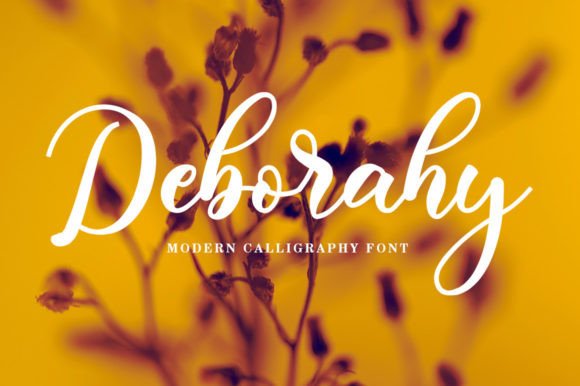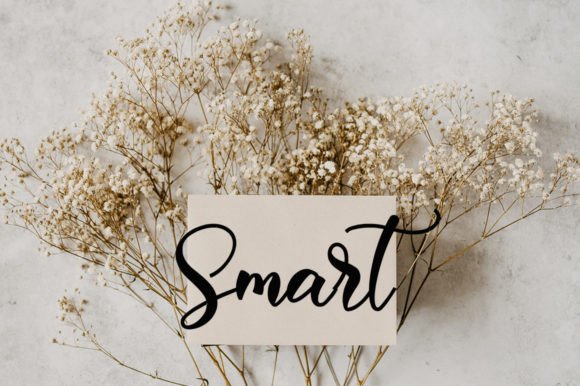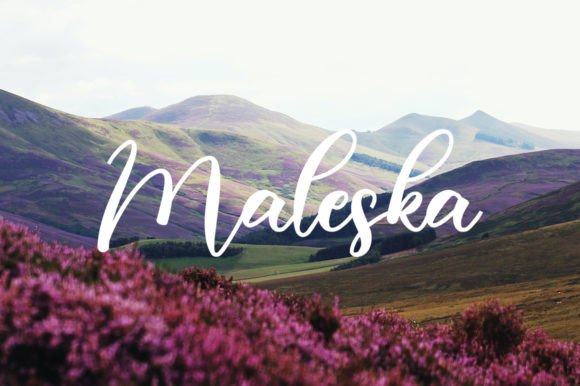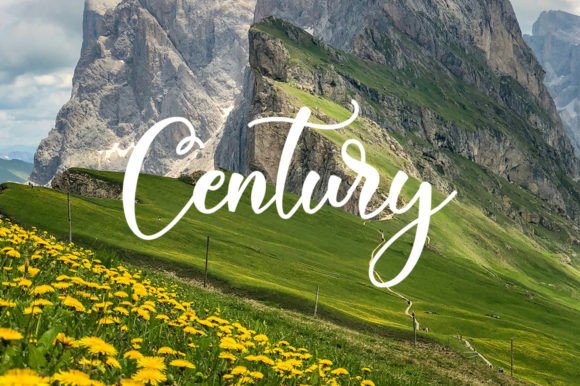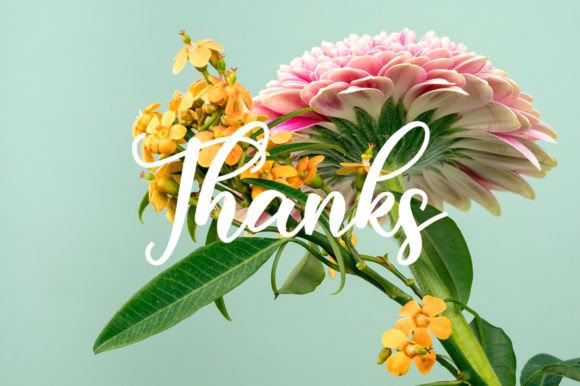
Deborahy
Deborahy: Exquisite Script Elegance for Discerning Designers
Introducing Deborahy – a breathtakingly stylish script font that combines contemporary flair with timeless sophistication. This PUA-encoded masterpiece gives you effortless access to gorgeous swashes and alternates, making every design feel custom-crafted.
Luxury Made Effortless
The perfect touch for premium designs
Why DeboraHy Wins Hearts
• Trend-Forward Style: Contemporary curves with classic elegance
• Complete Glyph Control: PUA encoding for easy swash access
• Versatile Sophistication: Perfect for digital and print media
• Designer-Friendly: Includes alternates for unique combinations
Luxury Branding
• High-end product packaging
• Boutique logos
• Fashion labels
Special Events
• Wedding invitations
• Announcements
• Celebration stationery
Digital Presence
• Instagram graphics
• Website headers
• Email signatures
Technical Brilliance
• Character Set: Uppercase, Lowercase, Numbers, Symbols
• Special Features: 50+ swashes, contextual alternates
• Languages: Western & Central European support
✒️ Styling Secret: Combine initial swash capitals with lowercase letters for balanced elegance in logos.